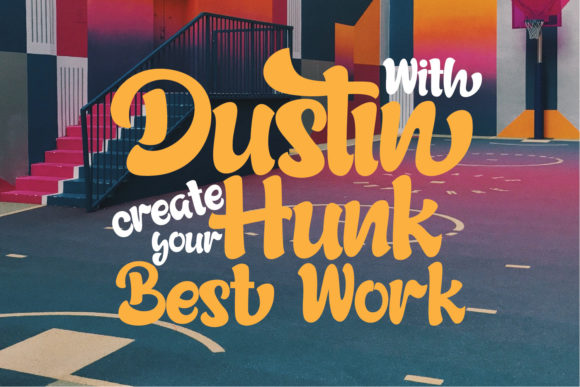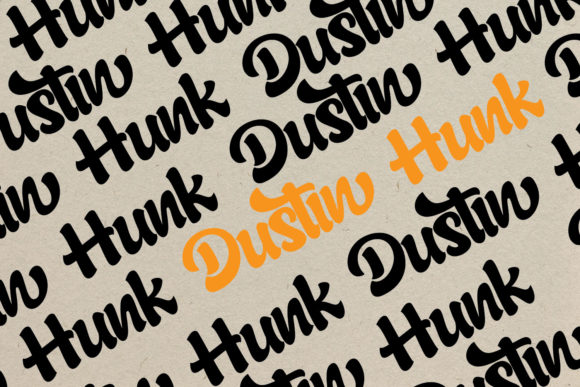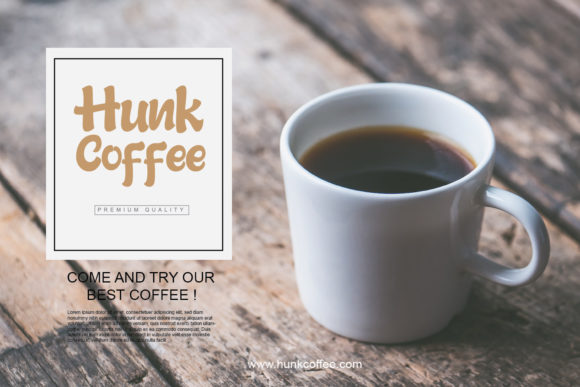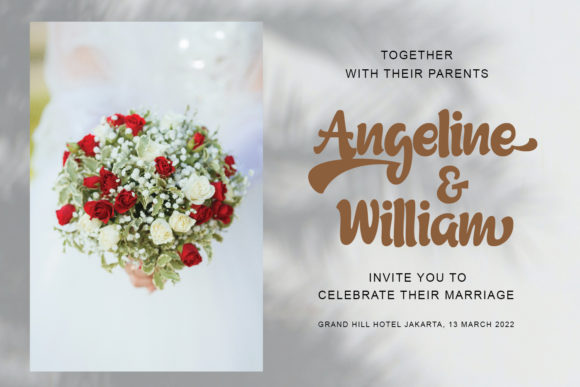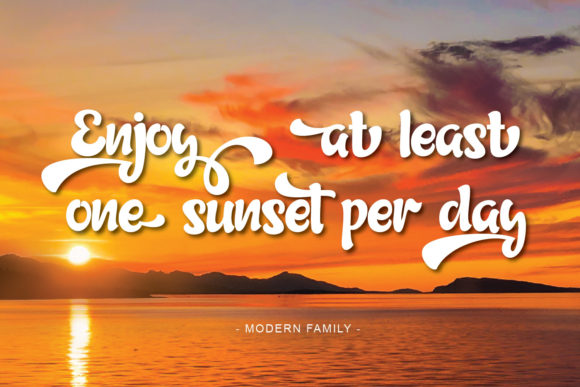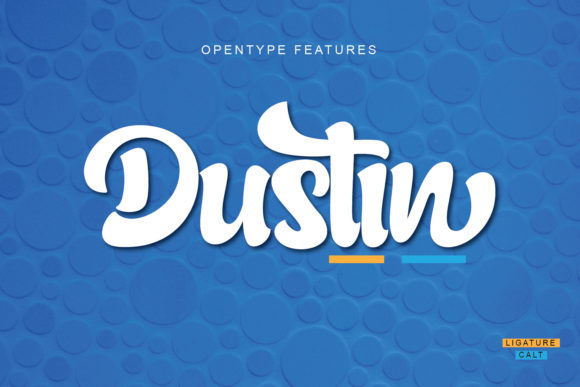
Dustin Hunk Font: Elevate Your Designs with Elegance and Sophistication
In the world of design, fonts play a crucial role in conveying the message and aesthetic of a project. For designers and crafters looking for a modern and elegant display font, Dustin Hunk is an excellent choice. This versatile font is perfect for creating a wide range of designs, from business cards and logos to branding, posters, apparel design, magazine covers, and more.
What Makes Dustin Hunk Font Stand Out?
Dustin Hunk Font is a modern display font that boasts an elegant style, making it an ideal choice for designers who want to add beauty and value to their creative projects. Its sophisticated look is sure to impress, whether you’re working on a business card, logo, or magazine cover. The font’s versatility allows it to be used in various design contexts, making it a valuable addition to any designer’s toolkit.
Key Features of Dustin Hunk Font
- PUA Encoded: Dustin Hunk Font is PUA (Private Use Area) encoded, which means you can access all the glyphs and swashes with ease. This feature makes it simple to use and incorporate the font’s various elements into your designs.
- Elegant Style: The font’s elegant style is perfect for creating sophisticated and visually appealing designs. Its modern look and feel will elevate your projects and set them apart from the rest.
- Wide Range of Uses: Dustin Hunk Font is suitable for a variety of design applications, including business cards, logos, branding, posters, apparel design, magazine covers, and more.
Benefits of Using Dustin Hunk Font
Using Dustin Hunk Font in your designs offers several benefits, including:
- Time-Saving: With Dustin Hunk Font, you can create professional-looking designs quickly and easily. Its elegant style and PUA encoding make it simple to use and customize.
- Consistency: The font’s consistent and sophisticated look ensures that your designs will have a cohesive and polished appearance.
- Versatility: Dustin Hunk Font can be used in a wide range of design contexts, making it a valuable asset for designers who work on various projects.
Tips for Using Dustin Hunk Font Effectively
To get the most out of Dustin Hunk Font, consider the following tips:
- Experiment with Different Sizes: Dustin Hunk Font looks great in various sizes, from large display fonts to smaller body text.
- Combine with Other Fonts: Pair Dustin Hunk Font with other fonts to create visually interesting and dynamic designs.
- Take Advantage of Swashes: Use the font’s swashes and glyphs to add decorative elements to your designs and make them more engaging.
Who Can Benefit from Dustin Hunk Font?
Dustin Hunk Font is an excellent choice for a wide range of designers and crafters, including:
- Graphic Designers: Graphic designers can use Dustin Hunk Font to create stunning visual elements for their designs, from logos and branding to posters and magazine covers.
- Logotype Designers: Logotype designers can take advantage of the font’s elegant style and versatility to create custom logos and wordmarks.
- Crafters: Crafters, such as those who create handmade cards, scrapbooking, and other paper crafts, can use Dustin Hunk Font to add a touch of elegance to their projects.
Dustin Hunk Font is a modern display font that offers elegance, sophistication, and versatility. Its PUA encoding and wide range of uses make it an excellent choice for designers and crafters looking to elevate their designs. With its beautiful style and ease of use, Dustin Hunk Font is sure to become a valuable addition to any designer’s toolkit.